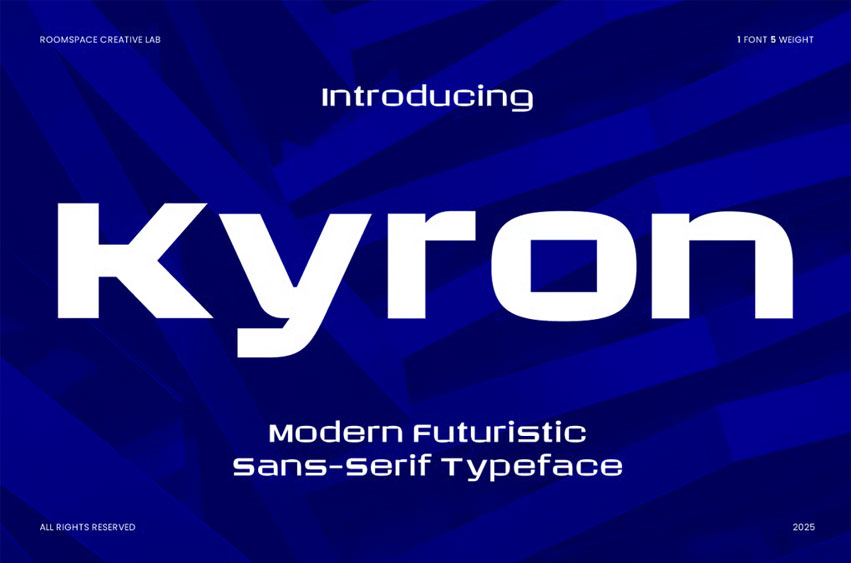
Kyron Font is a modern sans-serif typeface built with a futuristic edge and geometric precision. Every letter is crafted with balance and purpose, creating a clean, bold, and innovative impression. Its aesthetic blends modern minimalism with digital clarity, making it ideal for tech-driven and forward-thinking design concepts.
This font offers five weights, each maintaining consistent structure and optical balance. The design features clean terminals, tight kerning, and strong legibility across all display sizes, from sleek headlines to interface labels. Kyron’s structure makes it adaptable for both professional and creative applications where modernism meets technology.
Perfect for tech startups, app design, digital branding, posters, and editorial layouts, Kyron adds a futuristic sophistication to every project. If your vision involves progress, innovation, and clarity, Kyron is the font that defines tomorrow’s visual identity today.